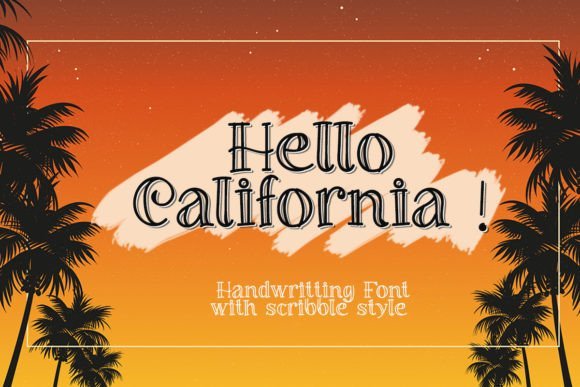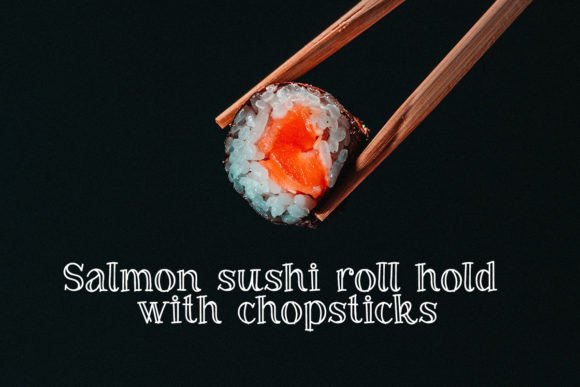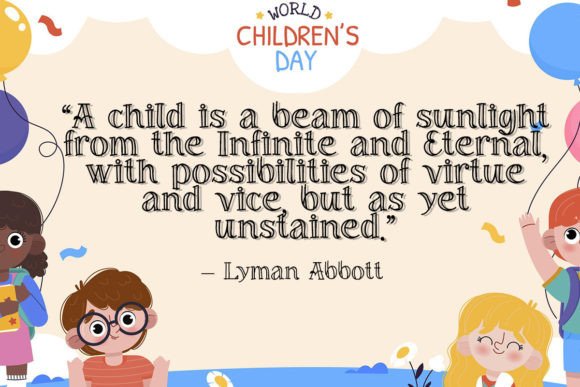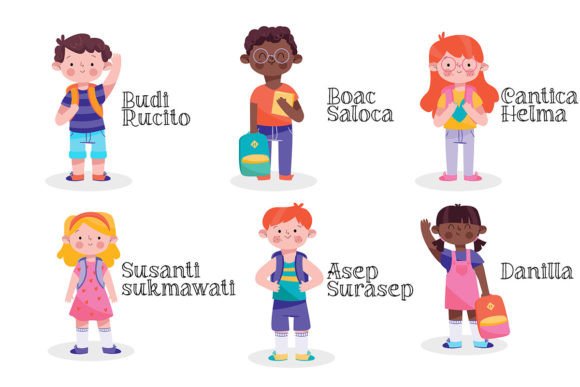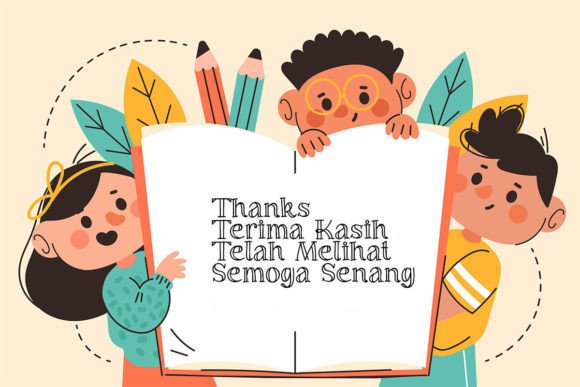
The Perfect Handwritten Touch: Unlocking the Magic of Hello California Font
Have you ever found yourself doodling in a notebook, letting your pen wander across the page as you let your imagination run wild? That’s where the magic happens, and that’s exactly where the Hello California Font comes in – a lovely and light handwritten font that adds a dash of whimsy to any design.
This enchanting font is more than just a pretty face; it’s a tool for designers to add a personal touch to their projects. With its original touch and dazzling look, the Hello California Font is the perfect addition to any design idea you wish to bring to life. Whether you’re working on a branding project, a marketing campaign, or a simple greeting card, this font is sure to add a luminous spark that sets your design apart.
Hello California Font Key Features
- Unique Characteristics: Hello California Font features a unique, hand-drawn design with a mix of modern and vintage elements, making it perfect for creating a distinctive and eye-catching visual identity.
Hello California Font Review
At first glance, the Hello California font seems like a fun, energetic addition to any design project. ✨ The font’s unique blend of modern and vintage elements is sure to grab attention and add some personality to your work.
- Unique blend of modern and vintage elements
- Highly readable, even at small font sizes
- Good for use in logos, headings, and titles
- Not ideal for body text or long blocks of text
- Lacks a consistent, cohesive style throughout the font
- Some characters may not render correctly on certain platforms
- ⚠️ May require manual kerning adjustments in some cases
Overall, I’d say that the Hello California font is a solid choice for designers looking to add some personality to their work. While it may not be the best choice for every project, it’s certainly worth considering for those looking for a unique, attention-grabbing font.
Tips for Getting the Most Out of Hello California Font
To get the most out of the Hello California Font, consider the following tips:
- Use the font in combination with other California-inspired elements, such as palm trees or surfboards.
- Use the font in headings and subheadings to create a clear hierarchy of information.
Common Use Cases for Hello California Font
The Hello California Font is commonly used in:
- Travel and tourism marketing materials
Alternatives to Hello California Font